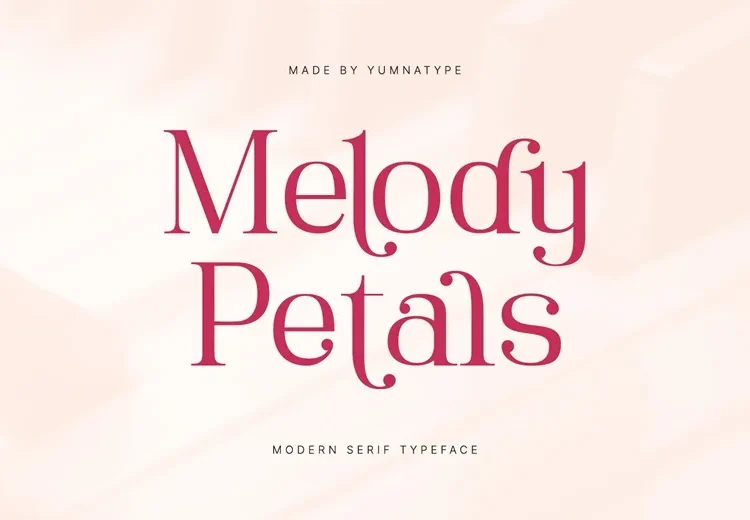
Melody Petals Font
Melody Petals is a classy serif font that beautifully blends contemporary aesthetics with a timeless elegance. Crafted with utmost care, this font exudes sophistication and tenderness, making it an ideal choice for a variety of design projects. Each letter features smooth and sleek strokes, complemented by soft corners, creating a harmonious balance that feels both modern and classic.
The font’s non-bold appearance adds to its simplicity, yet it carries a sophisticated air that can elevate any design. Whether you’re creating invitations, branding materials, or editorial layouts, Melody Petals provides a fresh, lively look that can enhance your message and captivate your audience. Its versatility allows it to adapt seamlessly to various styles while maintaining its unique charm.
Melody Petals stands out with its modern approach, distinguishing itself from traditional serif fonts. This uniqueness makes it particularly appealing for those looking to add a touch of elegance and vibrancy to their typography. The combination of classic and contemporary elements allows designers to explore new creative directions while ensuring their work remains polished and stylish.